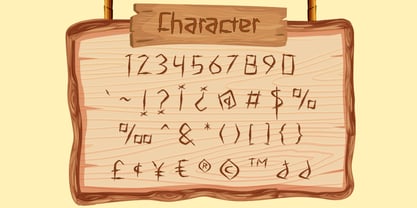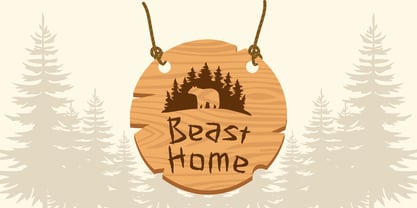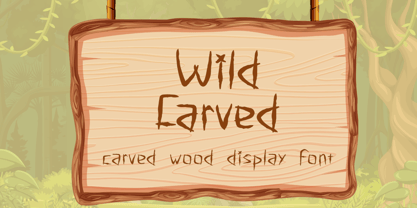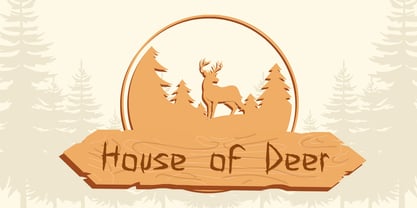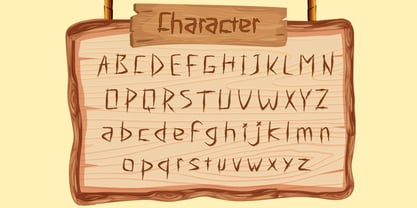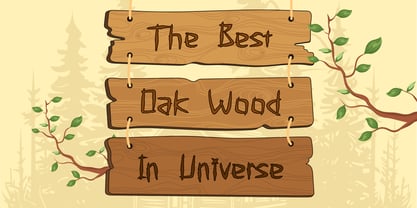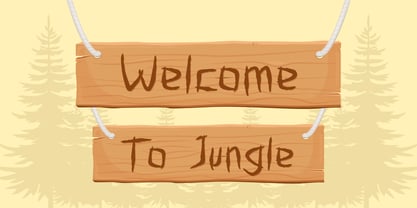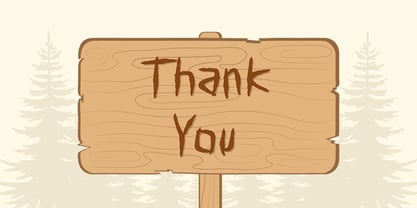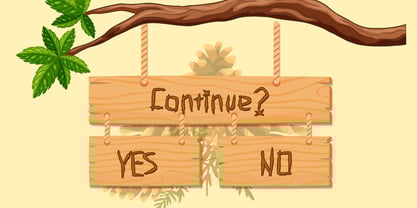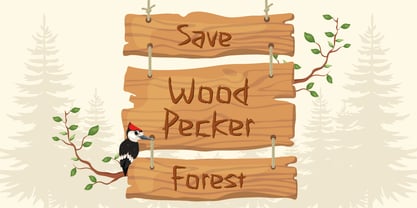
Carved Pine Wood
by Attype Studio
The Carved Pine Wood Font Family was designed by Fadli Ramadhan Iskandar and published by Attype Studio. Carved Pine Wood contains 1 styles. More about this family
Carved Pine Wood is a unique display font that mimics the look of letters hand-carved into wood. With its rustic and playful style, this font is perfect for nature-themed designs, adventure posters, kids' games, forest signage, camping flyers, and crafting projects.
Add a natural, woodsy charm to your creative work with this carved wood font. Great for titles, packaging, and branding that needs a handcrafted forest vibe.
Designers: Fadli Ramadhan Iskandar
Foundry: Attype Studio